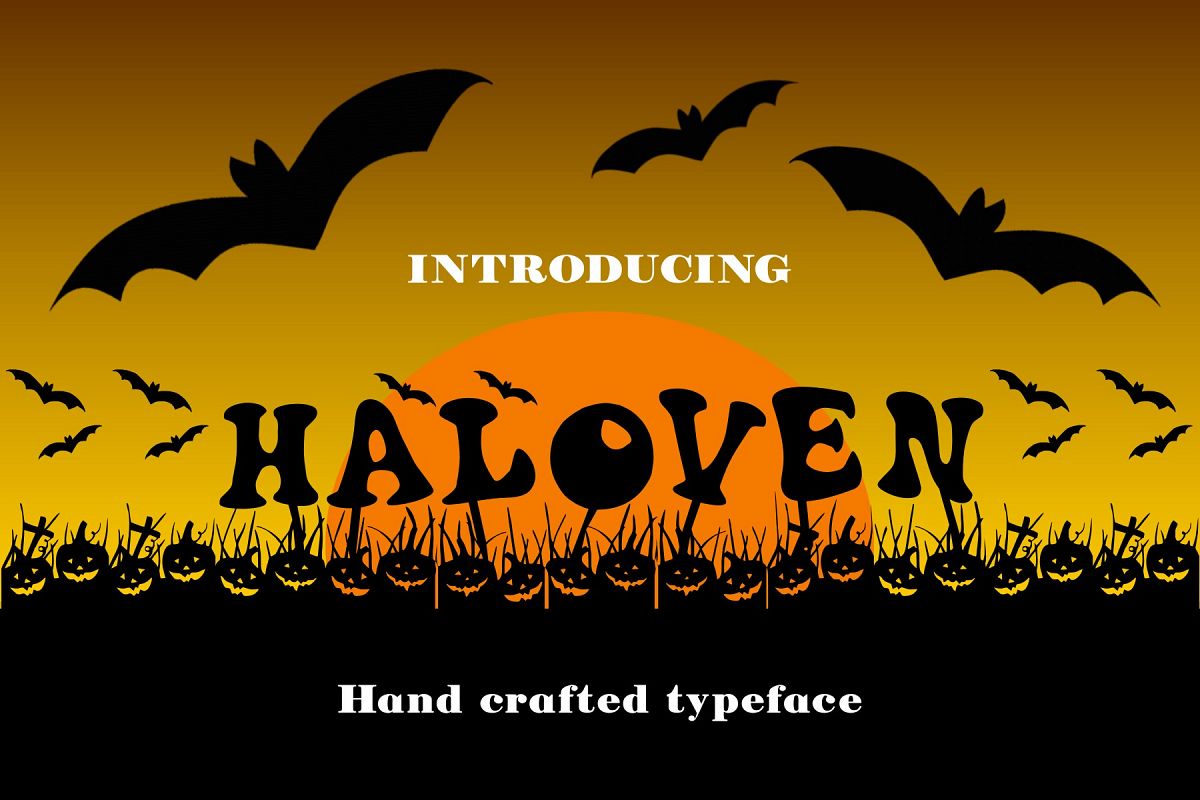
Haloven Font
Introducing Haloven hand drawn decorative typeface
Only capital letters and numbers and "/", so you can use the design background instead of blank space.
Haloven Font